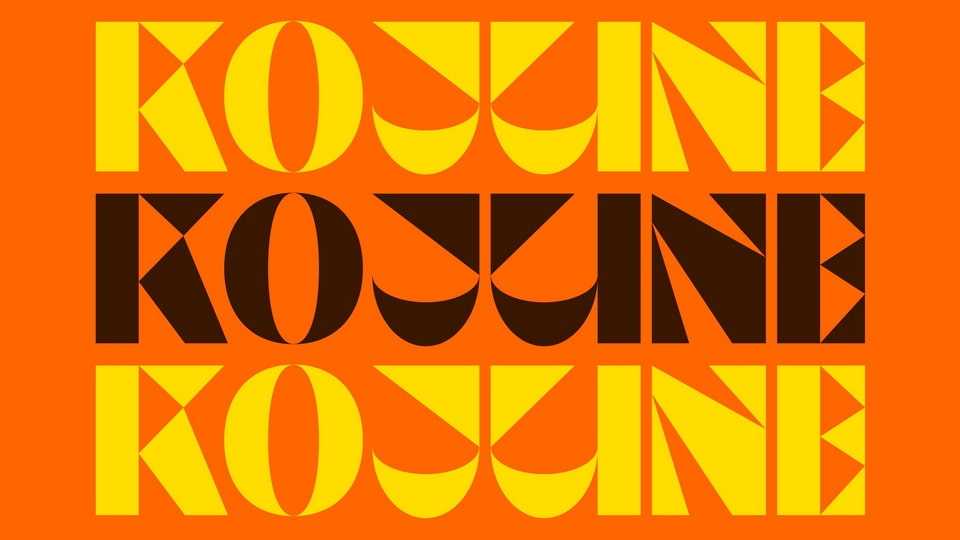
Download Kojune fotnt, an eye-catching, in-your-face display typeface. It’s perfect for branding, book covers, posters and such.
Designer: Suolahti Type